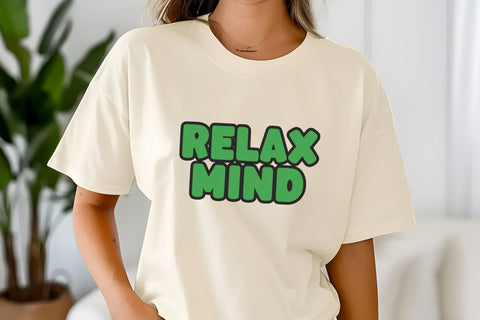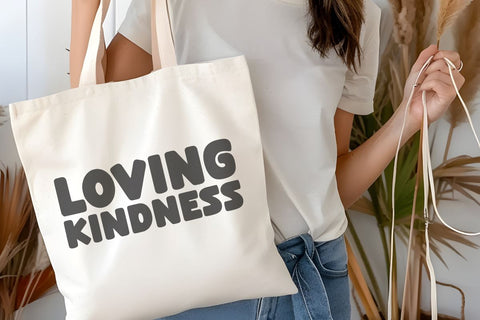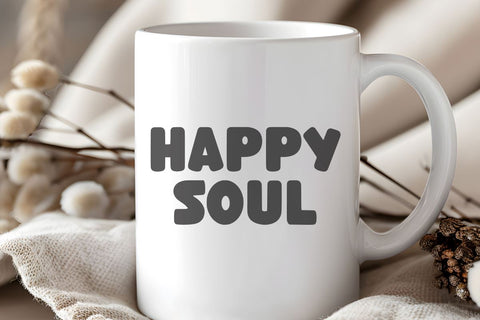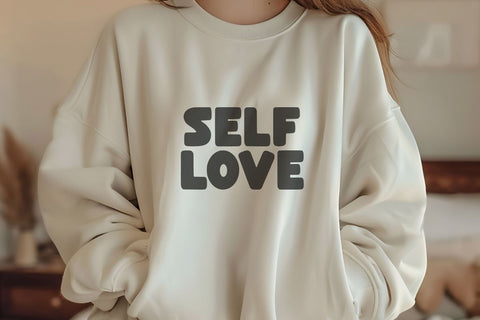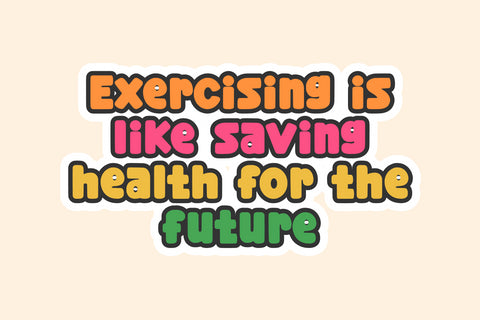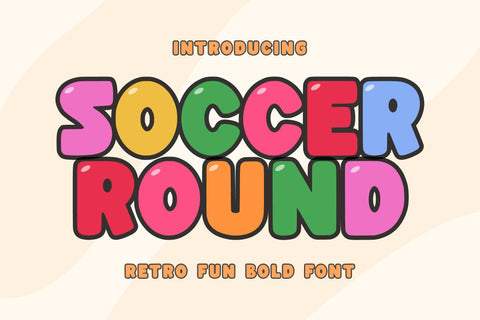
Soccer Round - Retro Fun Bold Display Font
Soccer Round is a bold and fun display font. a font inspired by the cool and cute designs of candy wrappers. This font is perfect for branding children's food. Apart from that, this font is also suitable for Christmas, Fall, Halloween, pizza boxes, Canva invitations, tumblers, teachers and many other ideas. In fact, this font is also good for advertising and printing media.